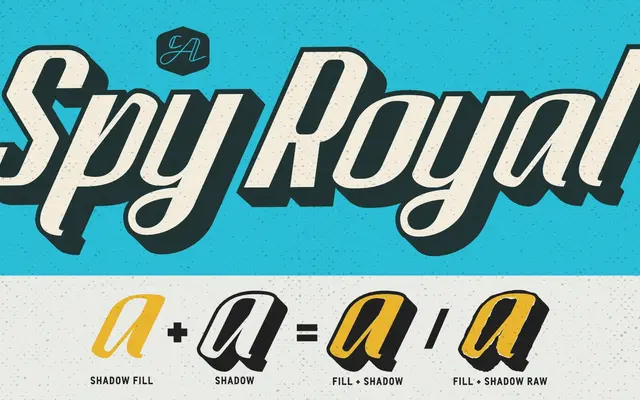
CA Spy Royal
Cape Arcona · Thomas Schostok · 2004
A junctionless display script by Thomas Schostok rooted in 1954 Japan Airlines lettering, expanded into six styles including shadow and line variants.
Originally derived from a single handful of uppercase letters spotted in a 1954 Japan Airlines advertisement, the family was extended into a full character set and first released in 2004 before undergoing a significant rework. Six styles cover Regular, two shadow treatments, Shadow Raw, Line and Line Bold, giving designers options for depth and dimension in vintage or retro contexts. It has found use on cocktail bottles, racing posters, bar menus and hot rod merchandise, reflecting its strong mid-century commercial vernacular.
A junctionless display script drawing on mid-20th century streamline lettering and commercial signage; the foundry classifies it as Display Script, sitting between classic script and retro streamline type.